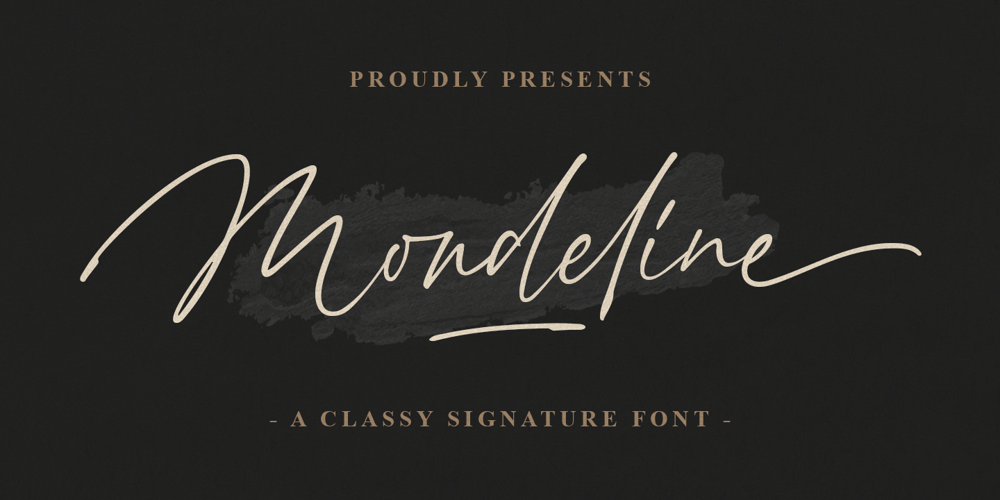
Mondeline Font Family was designed by Bangkit Tri Setiadi and published by Blankids. Mondeline contains 1 styles and family package options. Introducing of our new product the name is Mondeline a clean signature font. Mondeline inspired by signature style this font is a fun theme very good for display, tshirt design, craft, quote sign, logotype and etc